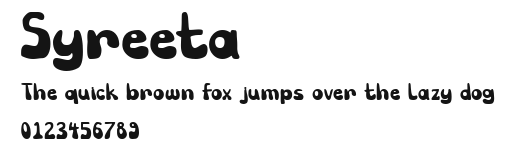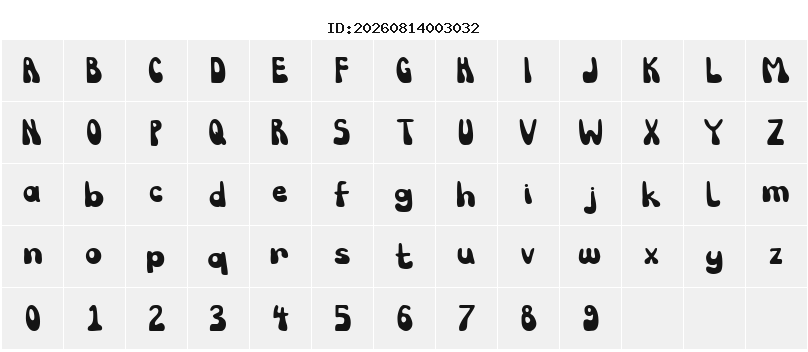
About Syreeta.ttf
Syreeta.ttf is a modern, elegant sans-serif font designed for ultimate readability and visual harmony. Perfect for branding, headlines, web design, and print materials.